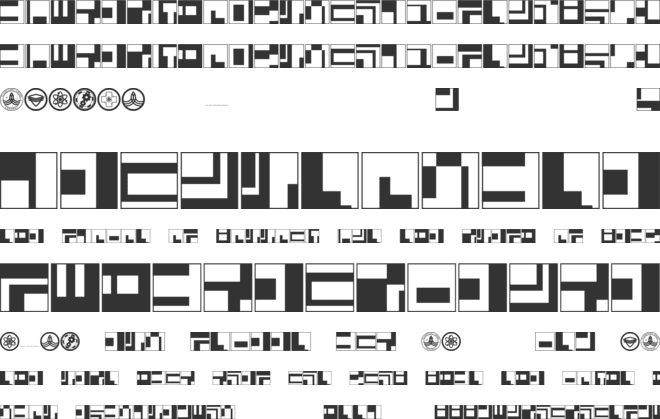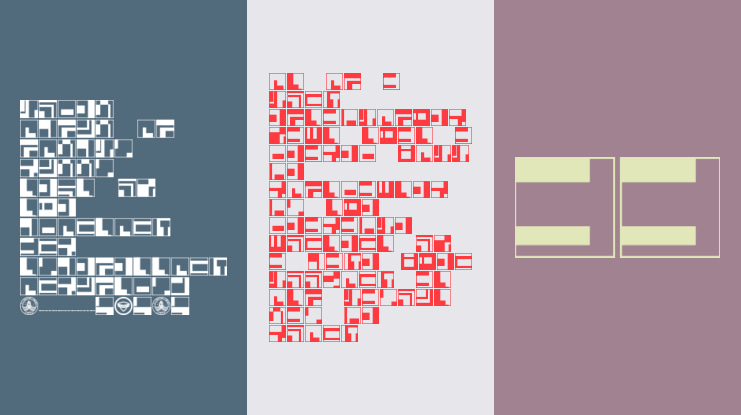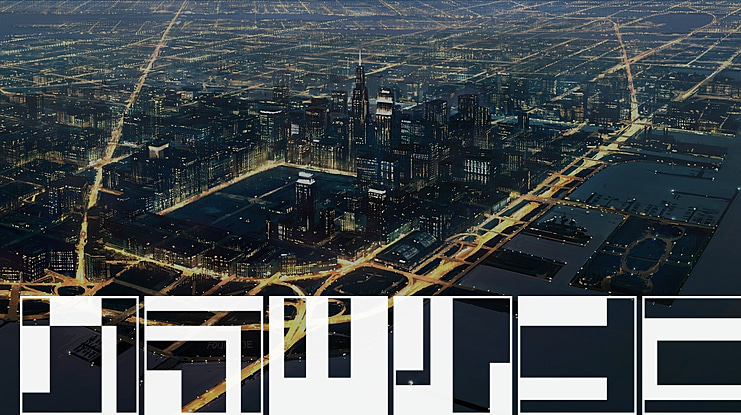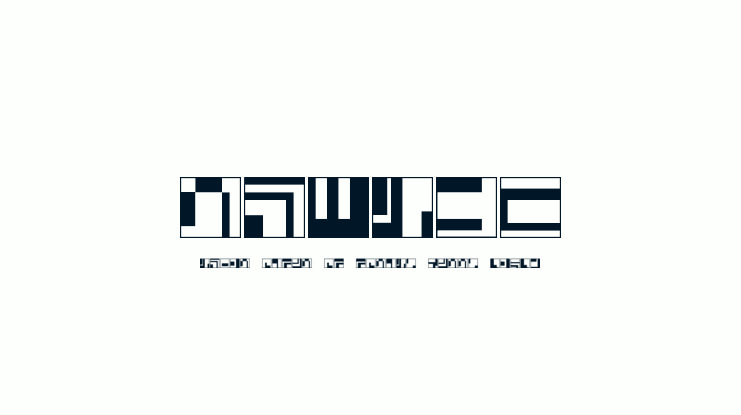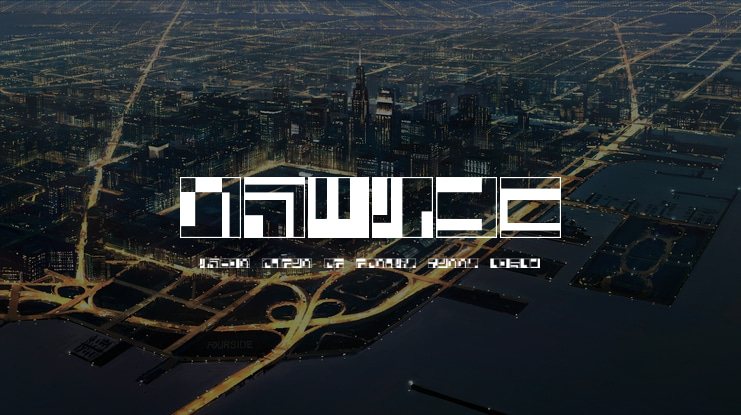
Moclan Font
here is my next alien font including a few dingbats from the Orville universe. If you like to donate an amount of your choice for my work I wouldn't say no, my PayPal address is part of the font. Thanks for reading and live long and prosper.